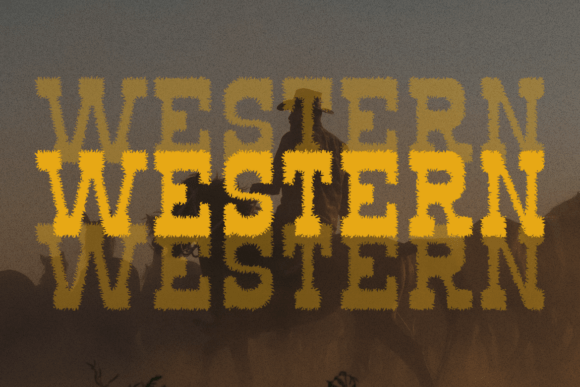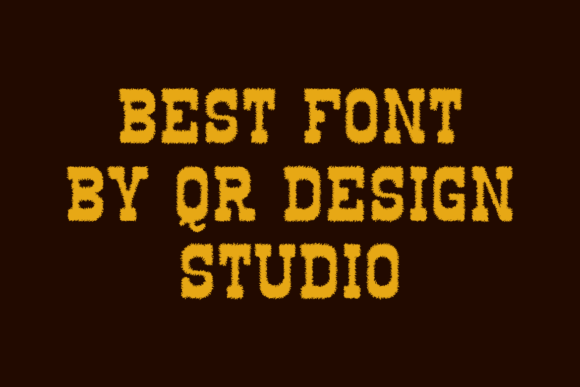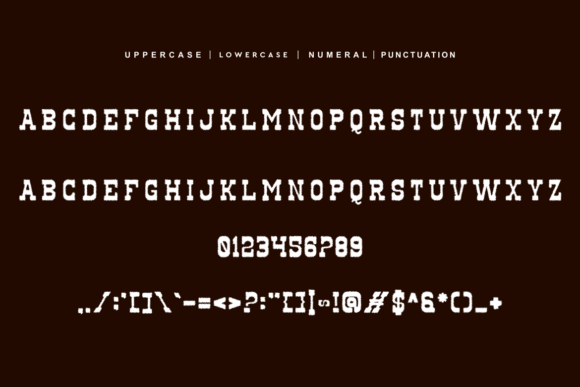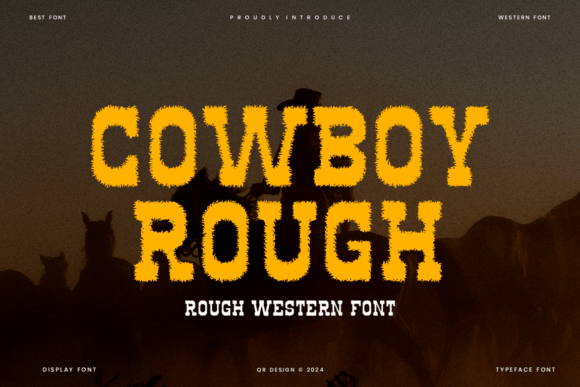
Introduction to Cowboy Rough Font
Cowboy Rough is a bold and assertive slab serif font.
Why Choose Cowboy Rough Font?
Cowboy Rough Font offers exceptional quality and versatility, making it a valuable addition to your design toolkit. Whether you’re creating for personal projects or commercial use, Cowboy Rough Font delivers professional results.